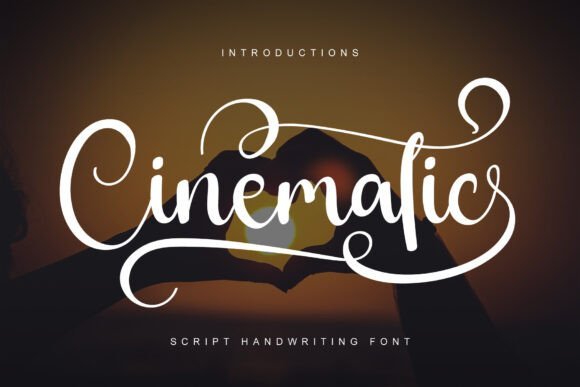
Step into the Spotlight with Cinematic Font
As designers, we’ve all been there – staring at a blank canvas, trying to bring our ideas to life. And then, it hits us – a spark of inspiration, a dash of creativity, and suddenly, our vision starts to take shape. For me, it was the moment I stumbled upon Cinematic Font, and I knew I had to share it with the world. This sweet and cursive handwritten font is more than just a design element – it’s a key to unlocking the perfect blend of elegance and whimsy in your projects.
Cinematic Font is designed to add a touch of joy and romance to your designs, making it perfect for branding, logos, wedding materials, and more. Its versatility and effortless charm make it a valuable asset for any designer looking to elevate their work and leave a lasting impression on their audience.
Cinematic Font Key Features
- Font Family: Cinematic Font is a unique, high-end font family consisting of 6 styles, each with its own distinct personality.
- Unique Characteristics: Cinematic Font features a distinctive, hand-crafted look with subtle texture and imperfections, giving it a high-end, film-inspired feel.
Cinematic Font Review
Cinematic Font is a visually stunning font that exudes grandeur and drama ✨. Its unique, hand-crafted design makes it perfect for creating attention-grabbing headlines and titles. The font’s cinematic feel is reminiscent of old Hollywood posters, making it ideal for movie-themed projects or anything that requires a touch of glamour.
The font comes in a variety of weights, from light to bold, allowing for flexibility in design ✨. The subtle texture and gradient effects add depth and visual interest, making it perfect for creating a sense of atmosphere.
- ⚠️ Limited legibility at smaller font sizes: While the font looks stunning at larger sizes, it can become difficult to read at smaller font sizes, making it less suitable for body text.
- ⚠️ Not ideal for small projects: With its dramatic design, Cinematic Font is best suited for large-scale projects where it can be showcased in all its glory.
Overall, Cinematic Font is a fantastic choice for designers looking to add a touch of drama and sophistication to their projects ✨. However, it’s essential to use it judiciously and in the right context to avoid overwhelming the viewer.
Getting the Most Out of Cinematic Font
Cinematic Font is perfect for:
- Movie titles and credits.
- Documentary titles and intros.
- Marketing materials and promotional graphics.
- Video game titles and menus.